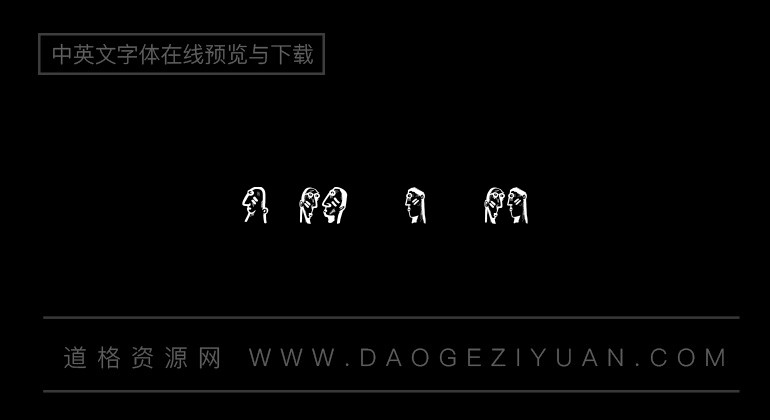
Bold People
Bold People is a very good handwriting art font, with a good visual sense, suitable for cultural propaganda design, commercial brand advertising and product packaging design and personalized text typesetting and other more scenes.